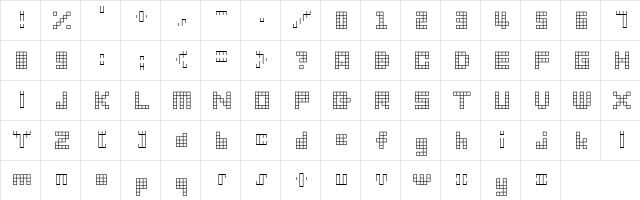
square type 2.0 Regular
Design Context for square type 2.0 Typeface
square type 2.0 offers clean, dependable letterforms without strong stylistic allegiance, making it a practical choice for designers who need flexibility.
Pro Tip: Use square type 2.0 in both headline and body roles to test its range before committing to a single application.